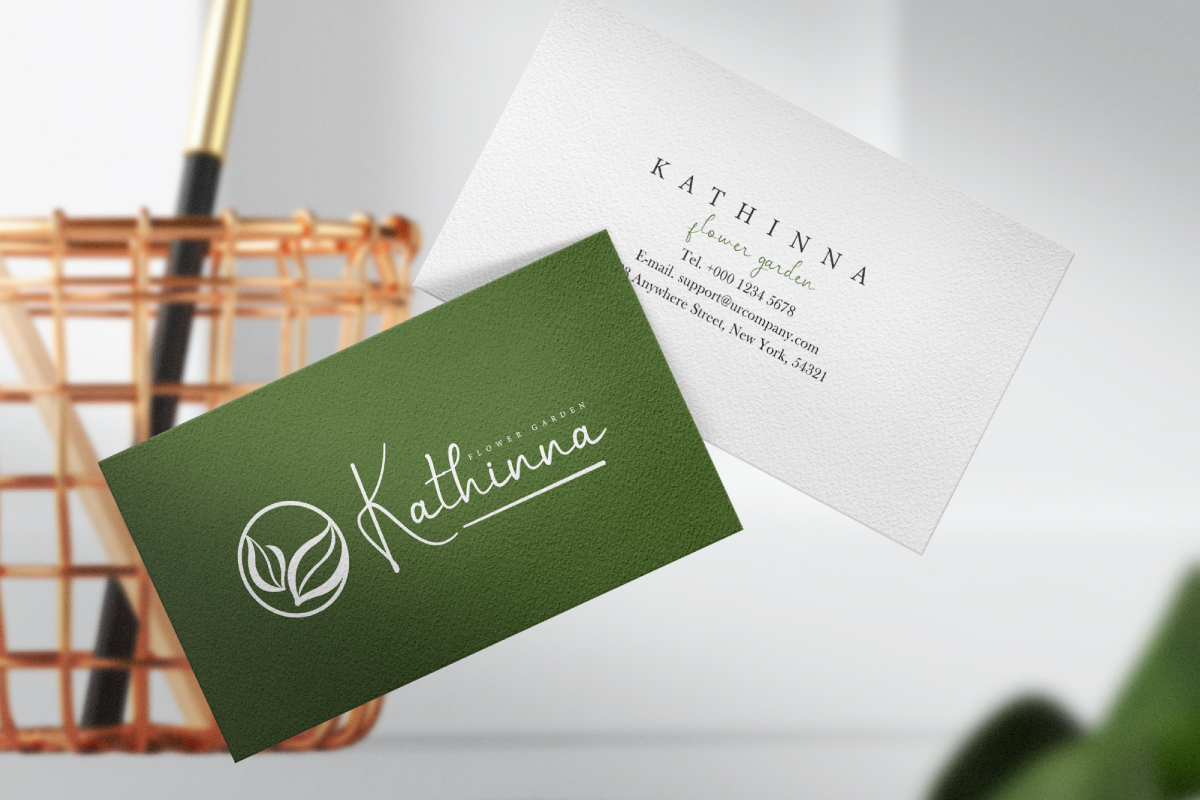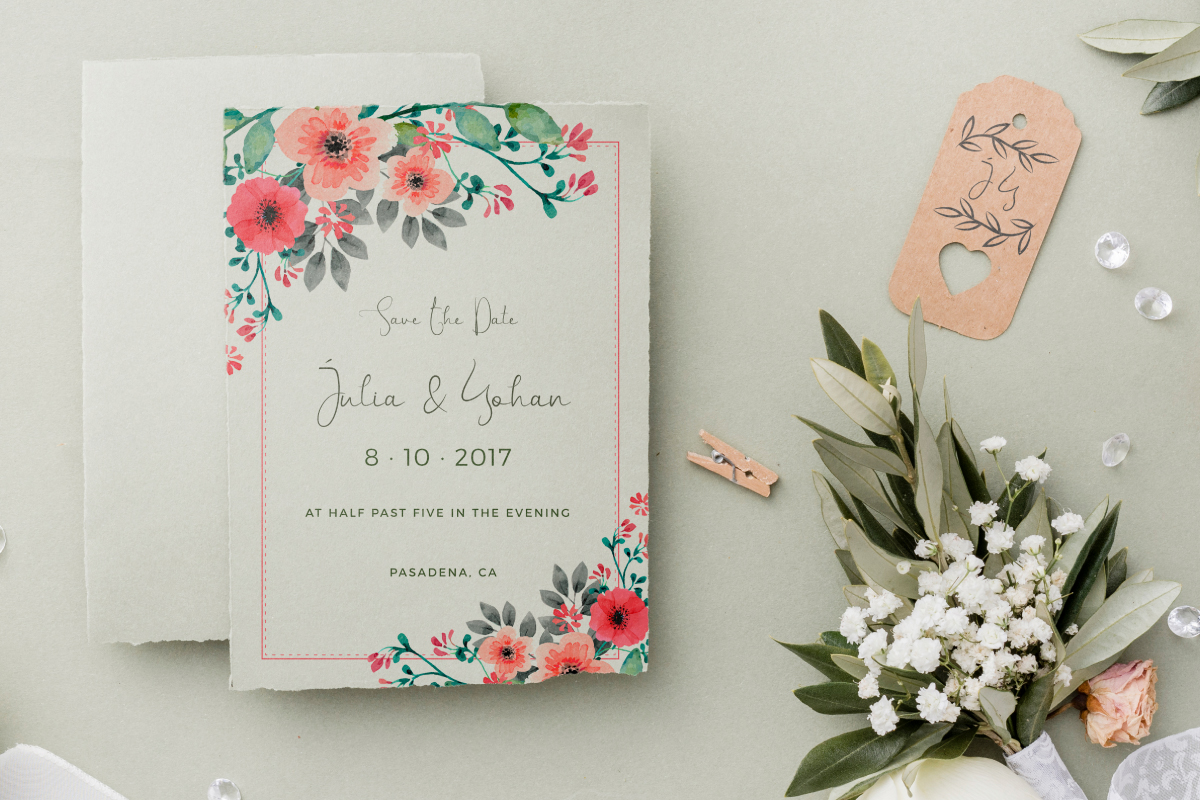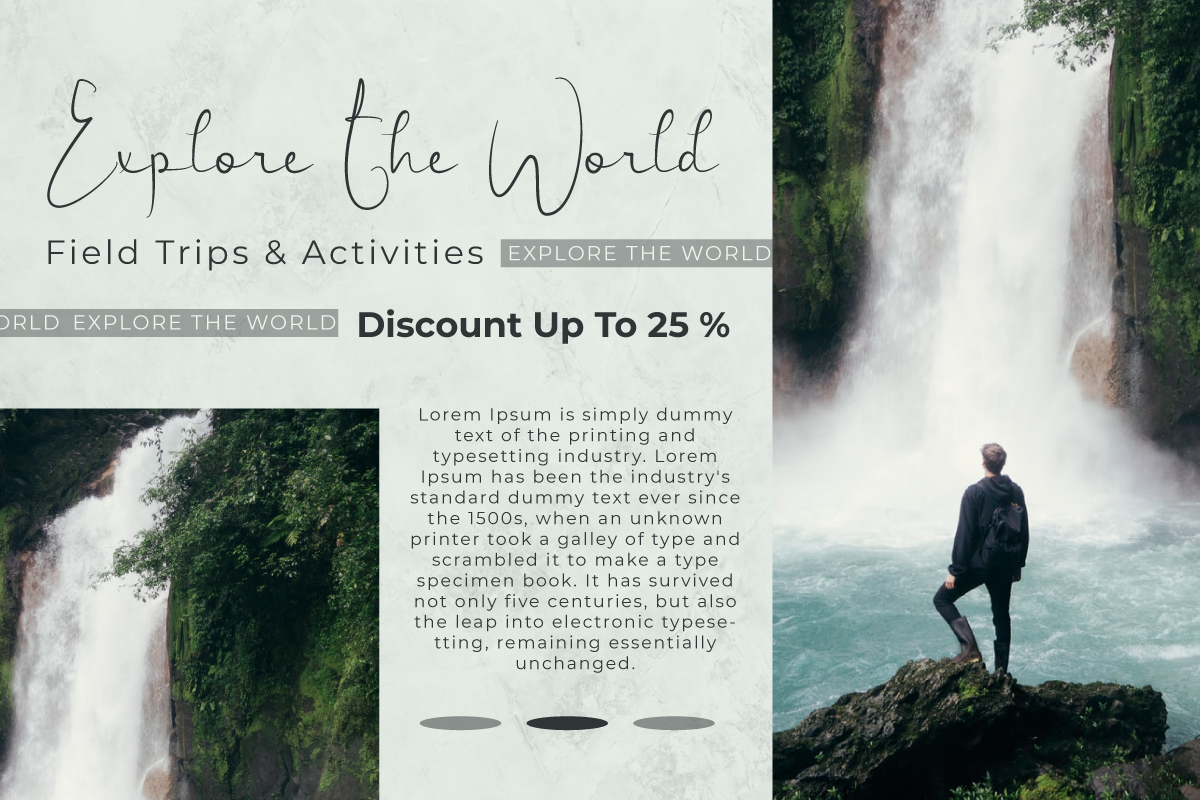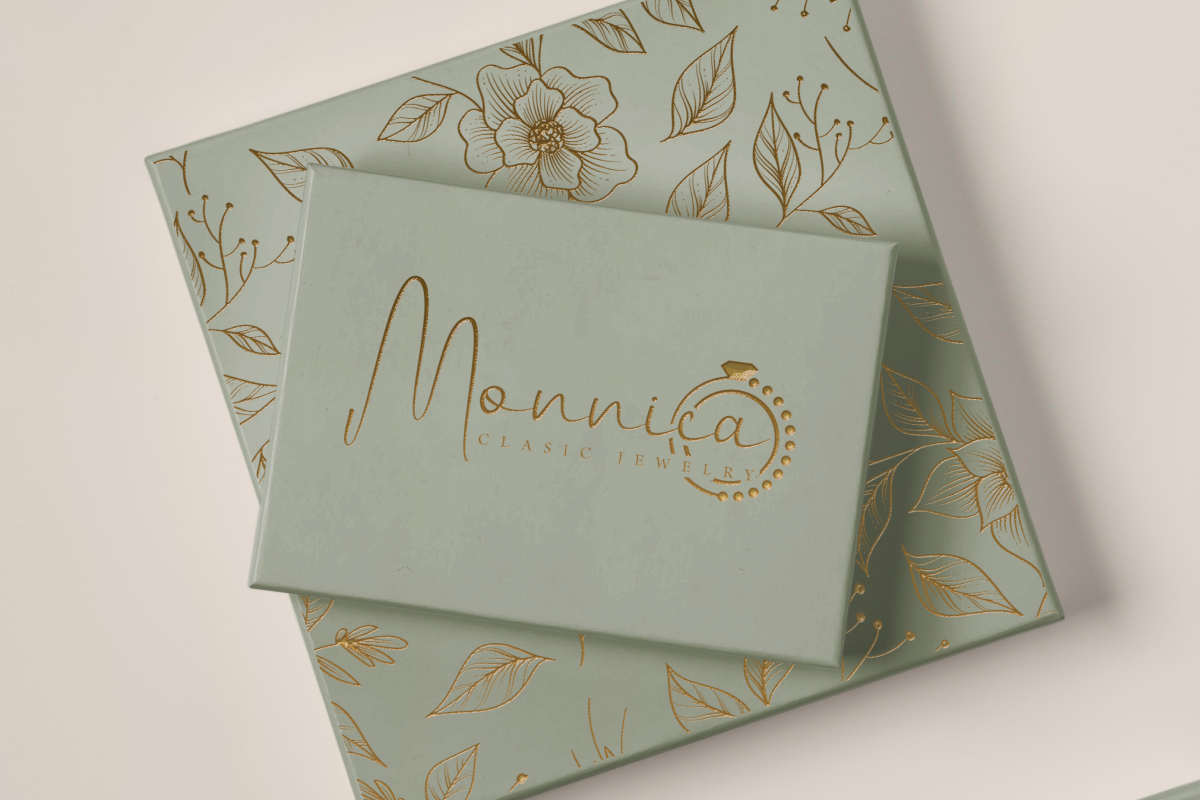
Stunning World Font
Stunning World Handwritten Font
It’s a classy handwritten font, created by EdricStudio. This type of typography is thin and stylish making it suitable for many industries, such as boutique, event planner, fashion, florist, jewelry, cake shop, photography, publishing, spa, travel agent, and anything that needs an awesome natural handwriting touch.
Stunning World Font comes with a full set of Uppercase and Lowercase Basic Characters, Number, large range of Punctuation and Symbol, Ligature, Swoosh. It has a stunning characters set, perfectly managed with well spaced and kerning. Stunning World Font will be great for any projects (with extended license) including: brochure, business card, invitations, jewelry box design, labels, stationery, title, website header, etc.